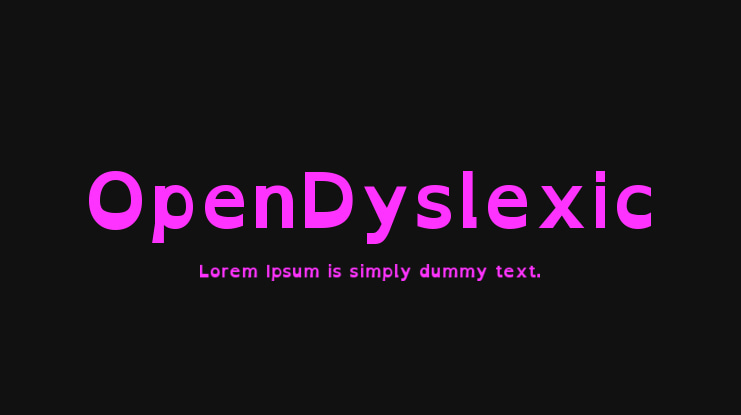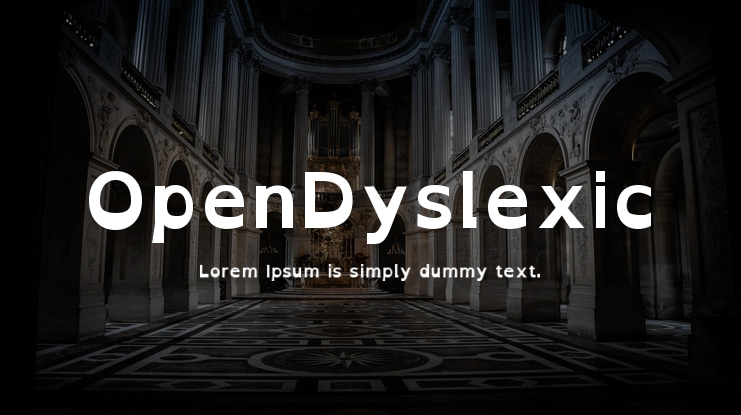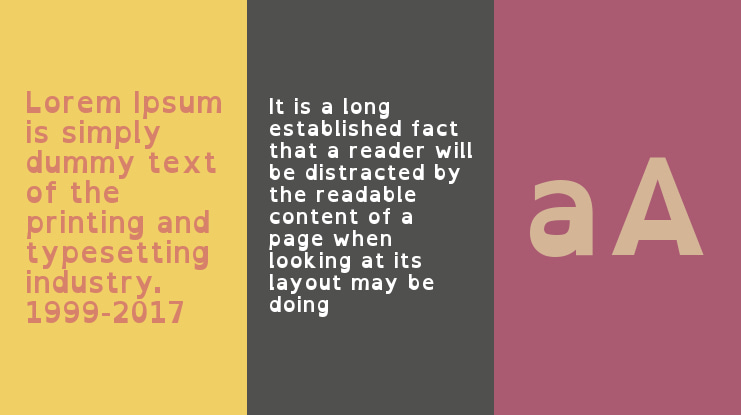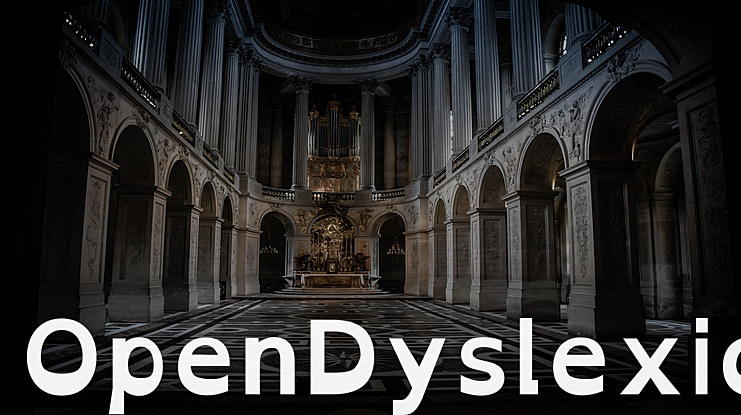
OpenDyslexic Font Family
Abelardo Gonzalez
OpenDyslexic is a new open source font created to increase readability for readers with dyslexia. It was built on Jim Lylesโ€™s Bitstream Vera Sans, and is free for Commercial and Personal use. http://opendyslexic.org/ https://github.com/antijingoist/open-dyslexic